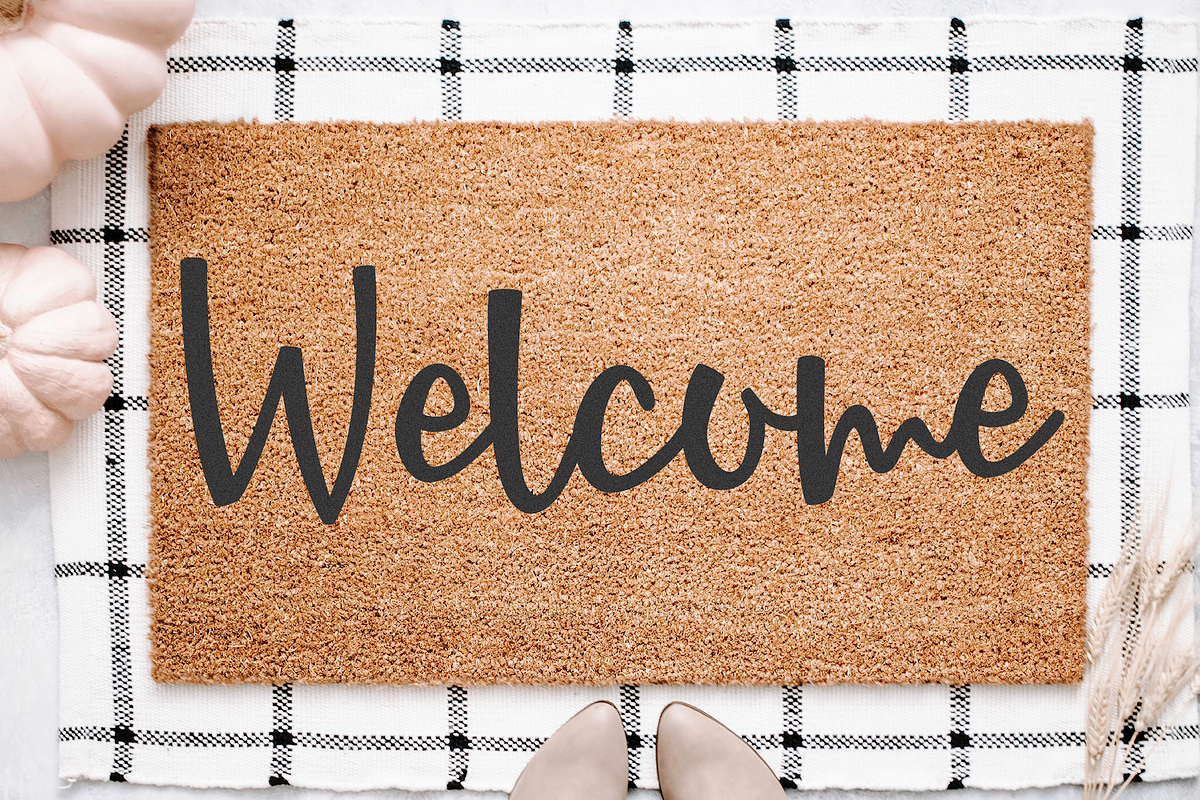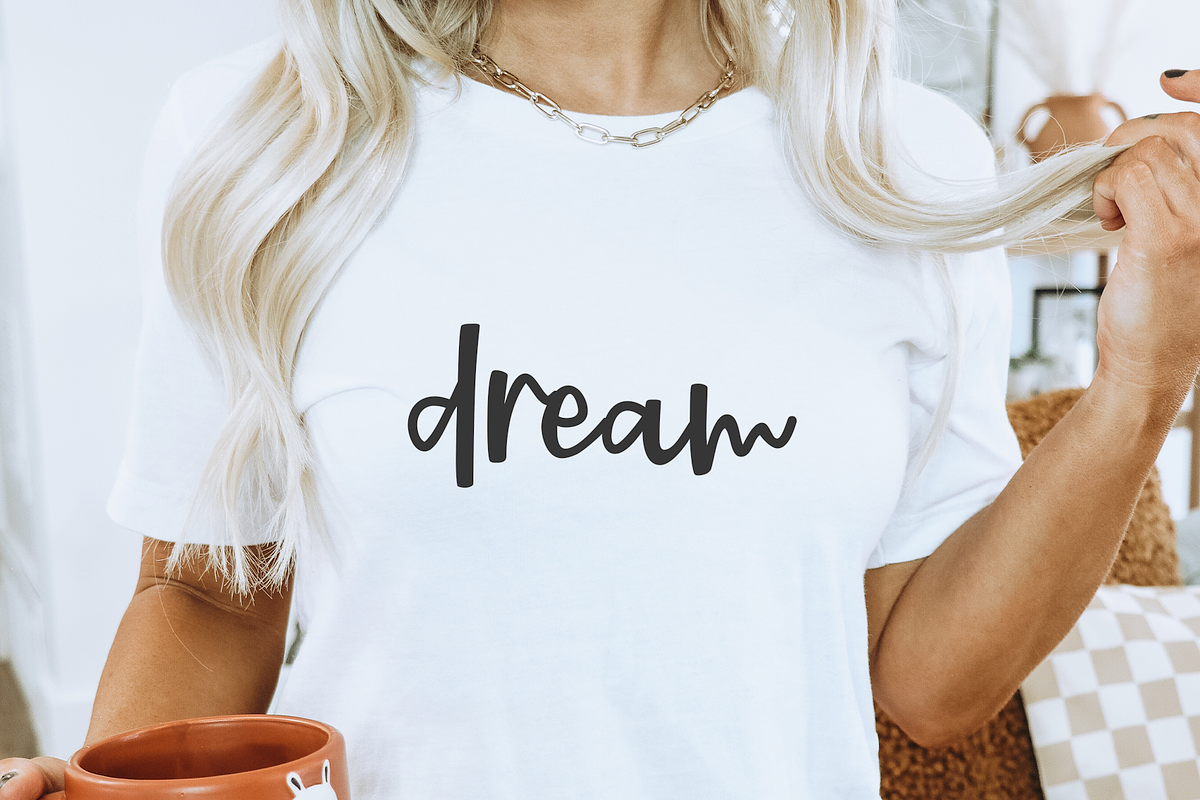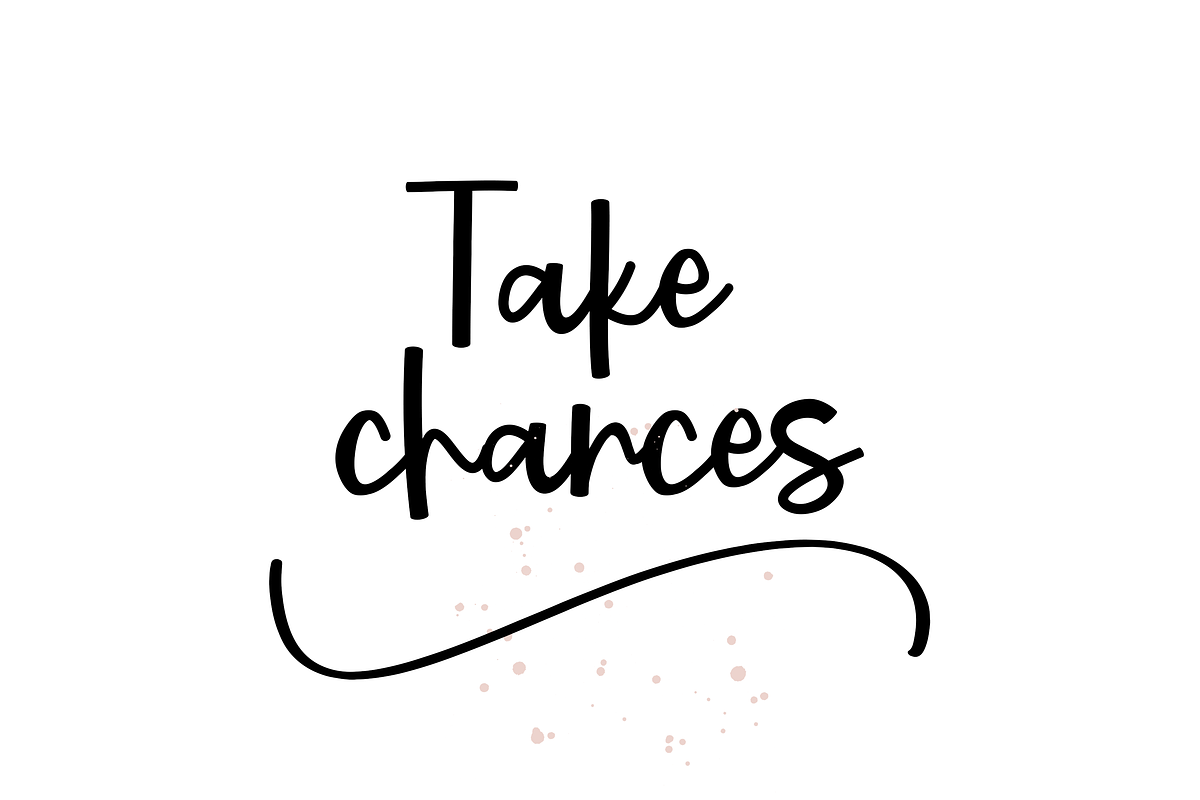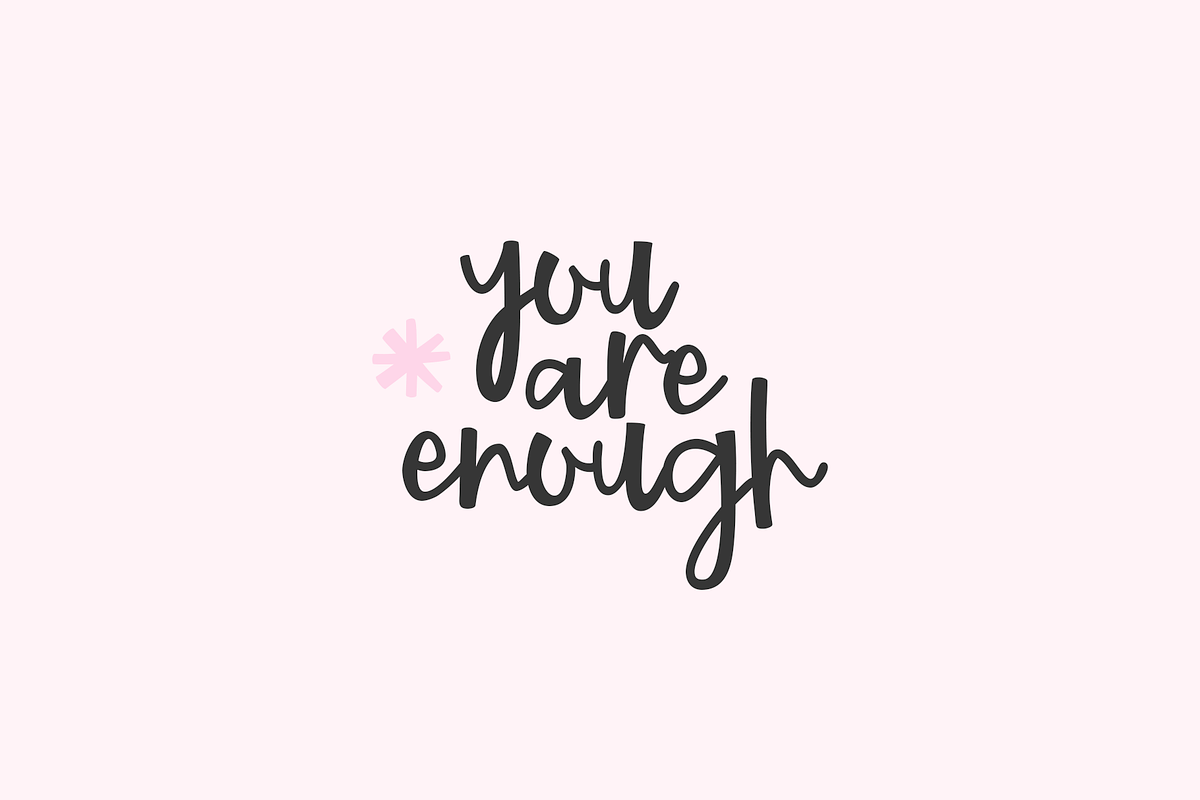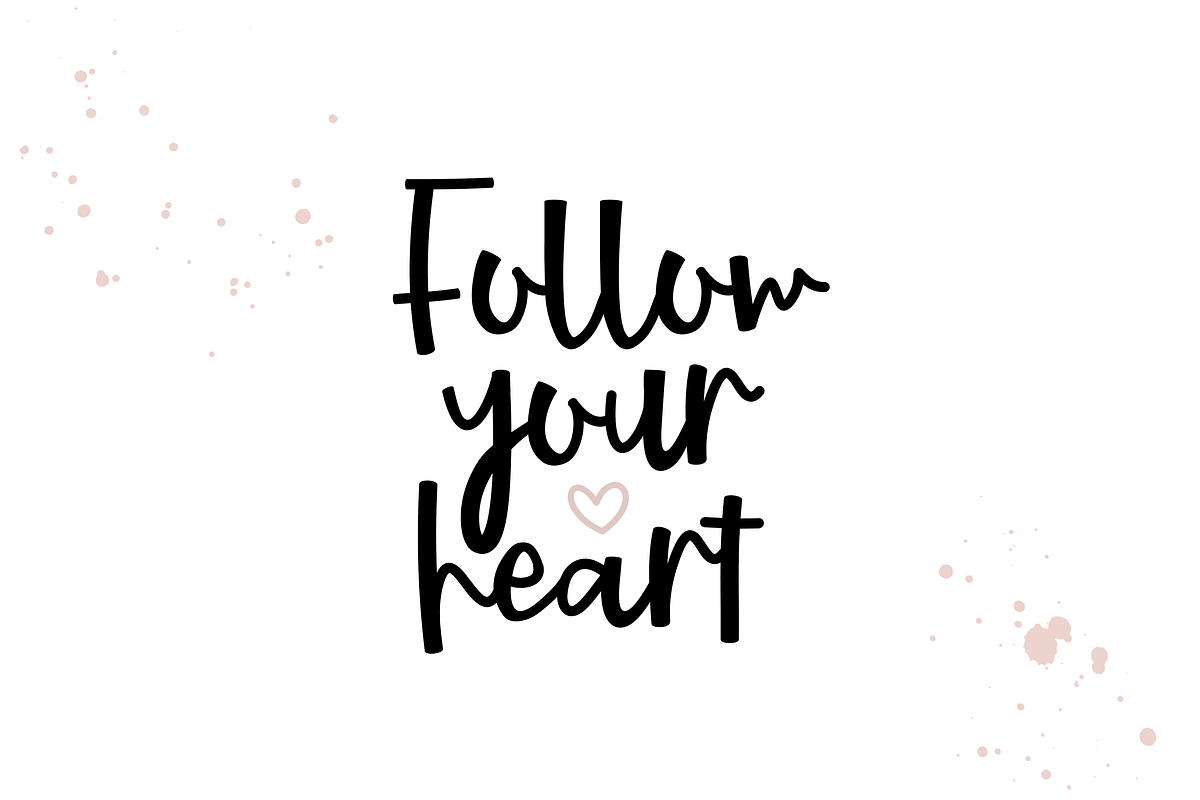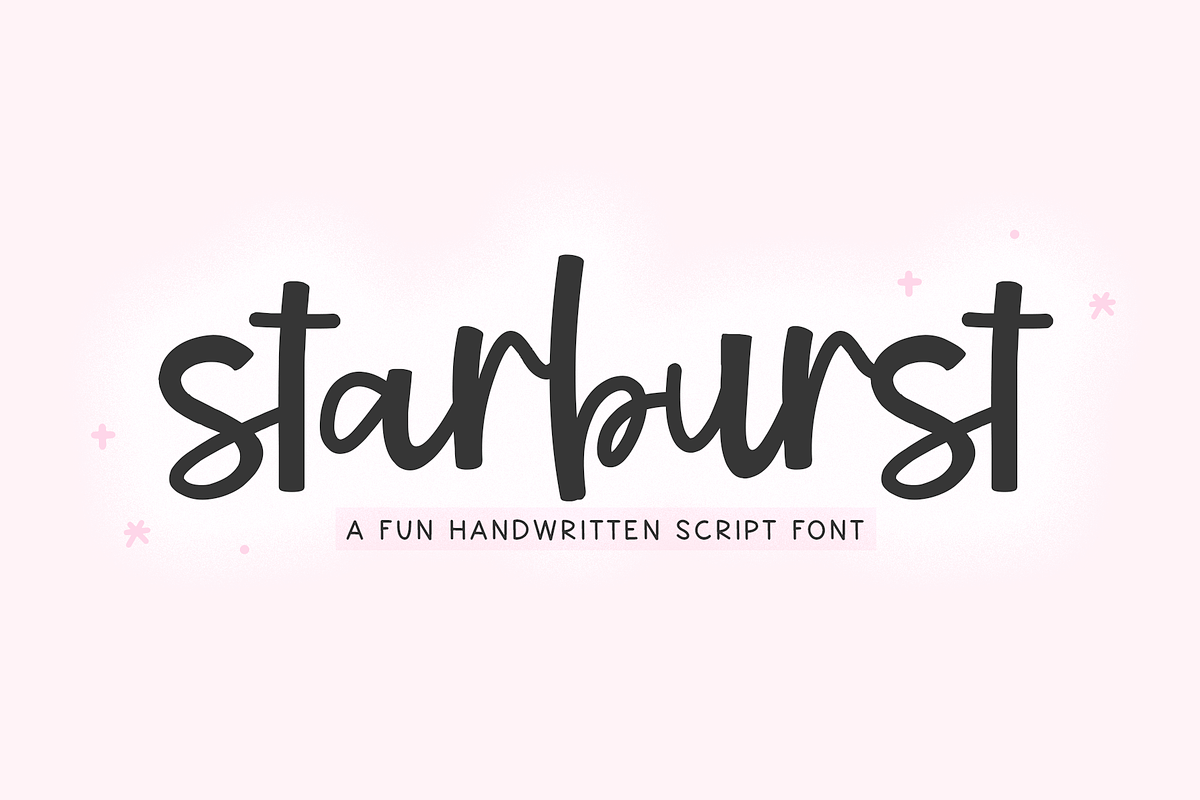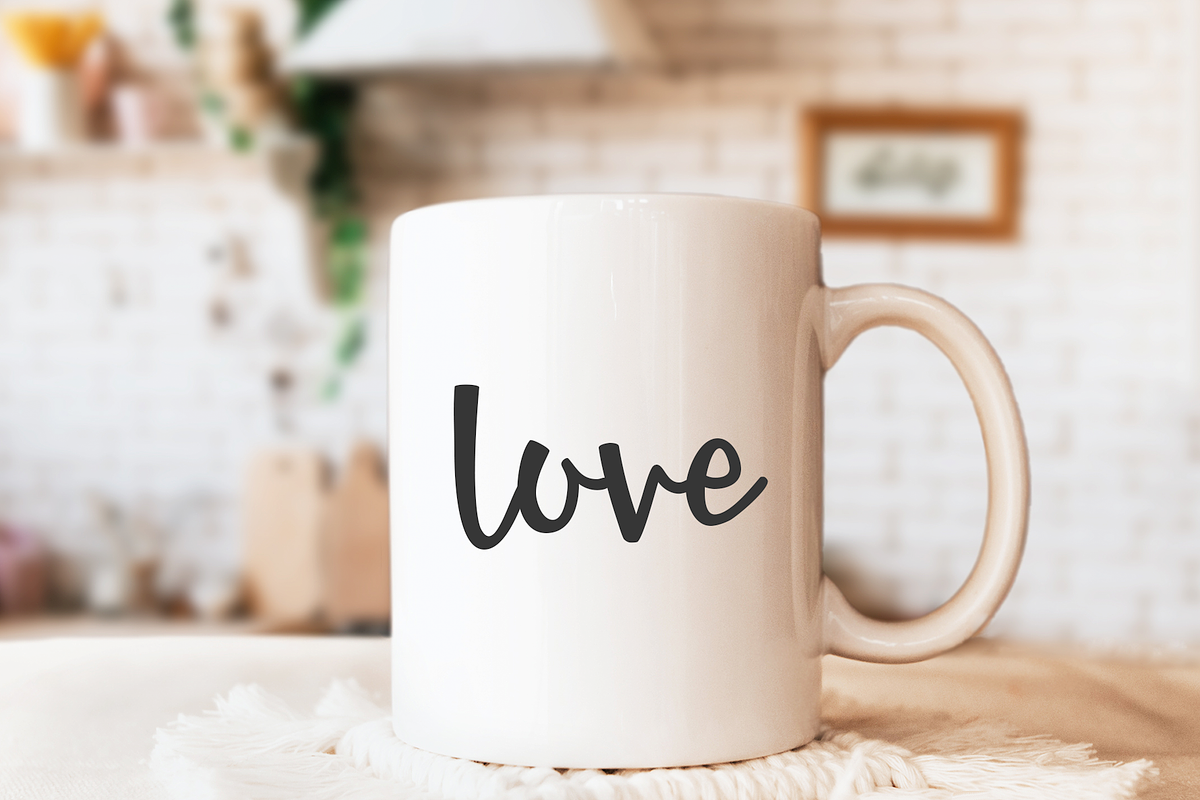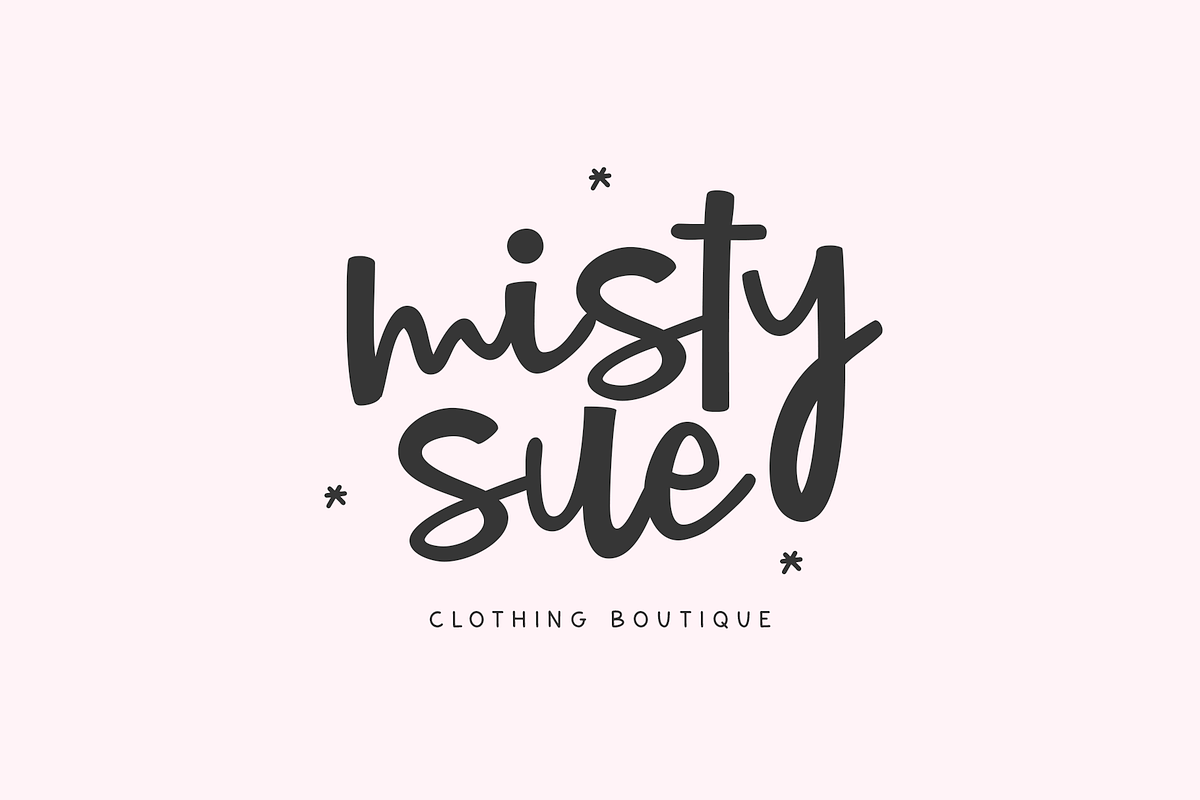
Starburst - A Bold Script Font
Starburstis a handwritten script font. The letters are fun and bold!
This font is perfect for cricut projects, stickers, procreate, social media quotes, posters,, headings, blogs, logos, invitations and more!